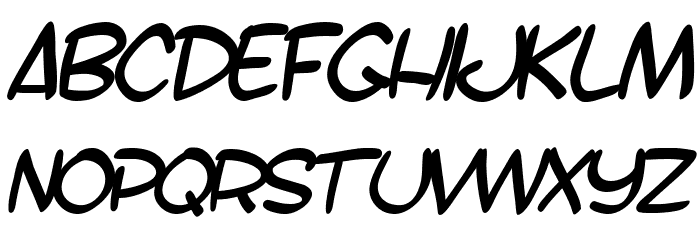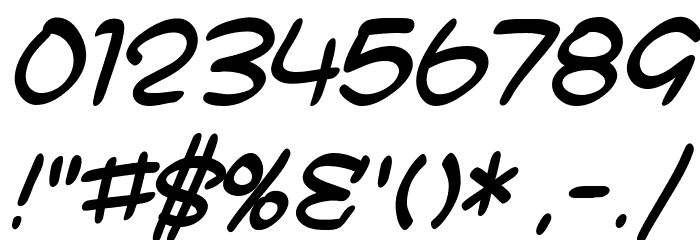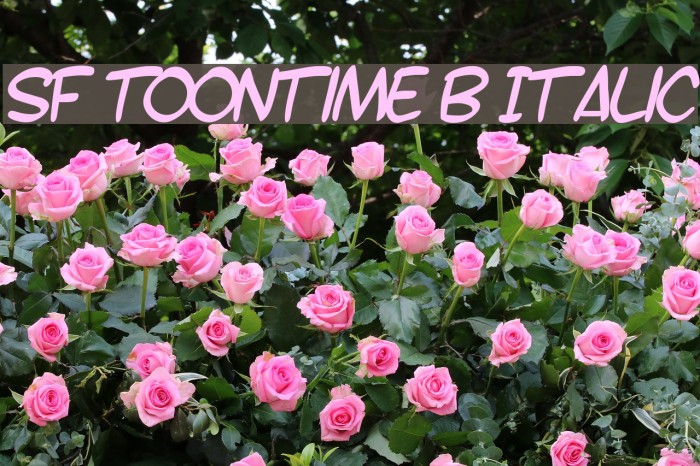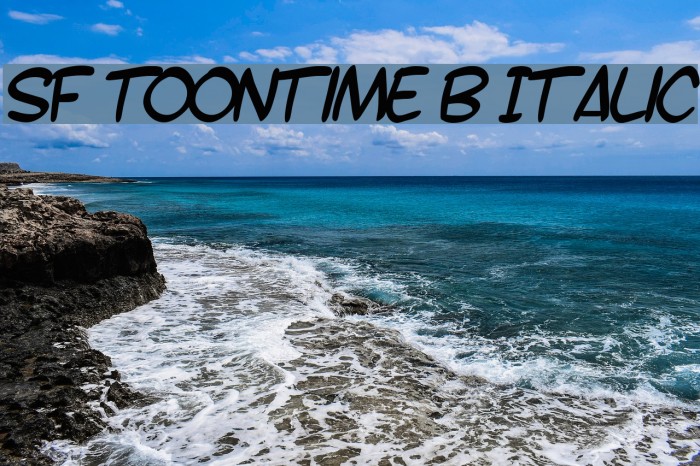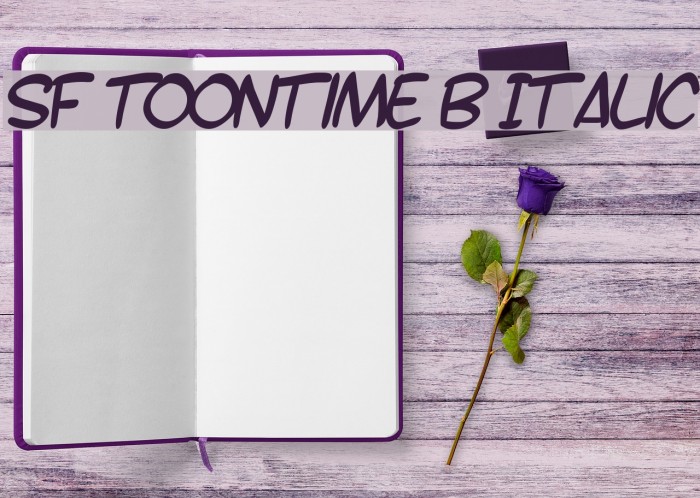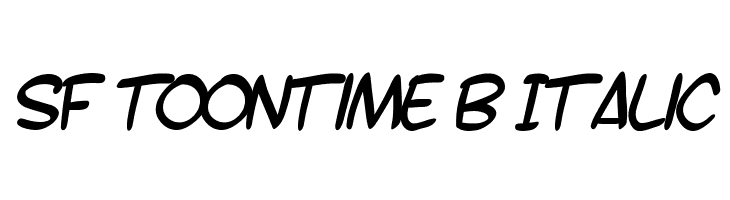
SF Toontime B Italic Font
This playful and energetic font features a handwritten style with a bold and italicized appearance. The characters are rounded and slightly slanted, giving a sense of movement and dynamism. The strokes are consistent in thickness, providing a uniform look across all letters and numbers. The font includes both uppercase and lowercase letters, numerals, and a variety of special characters. Its informal and friendly design makes it suitable for projects that require a touch of whimsy and creativity.
A bold, italicized handwritten font with a playful and dynamic style.
- Proposed Projects: Ideal for children's books, comic strips, playful branding, and casual invitations.
- Overall Style: Playful